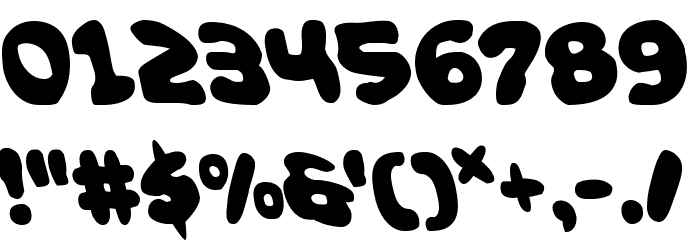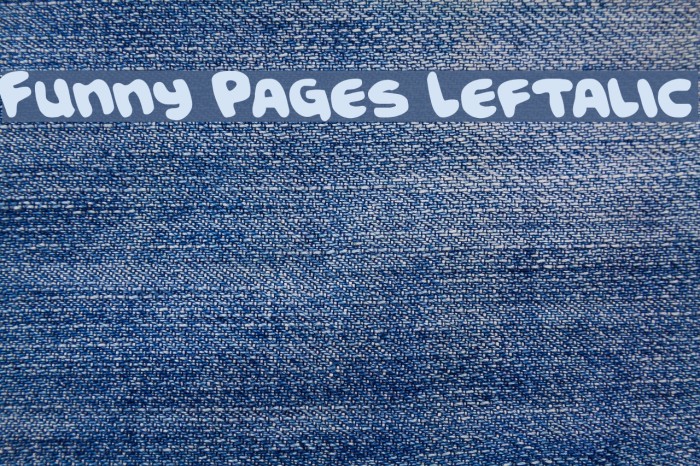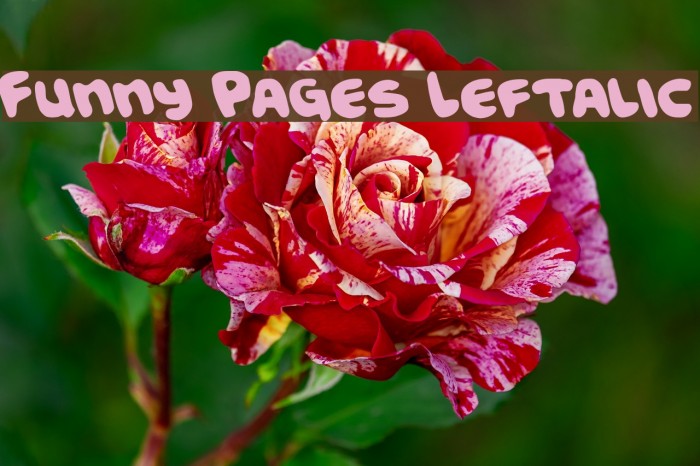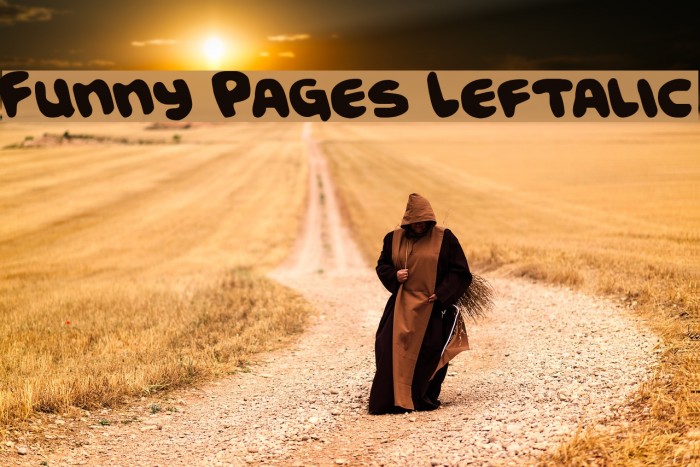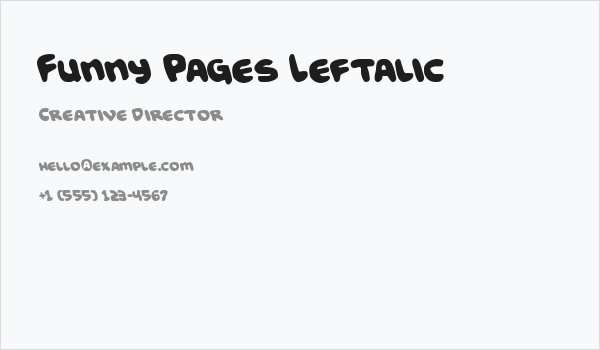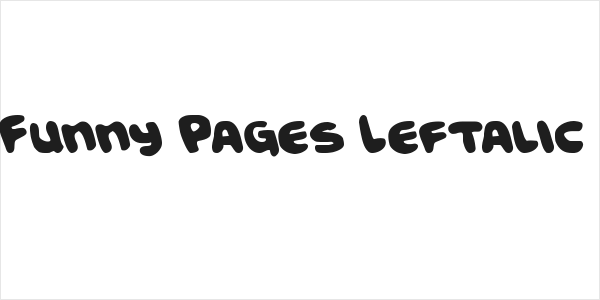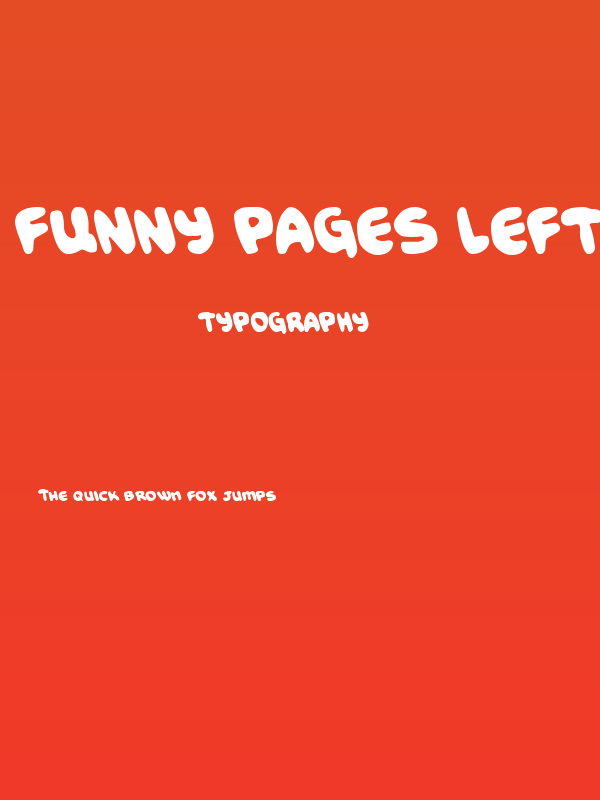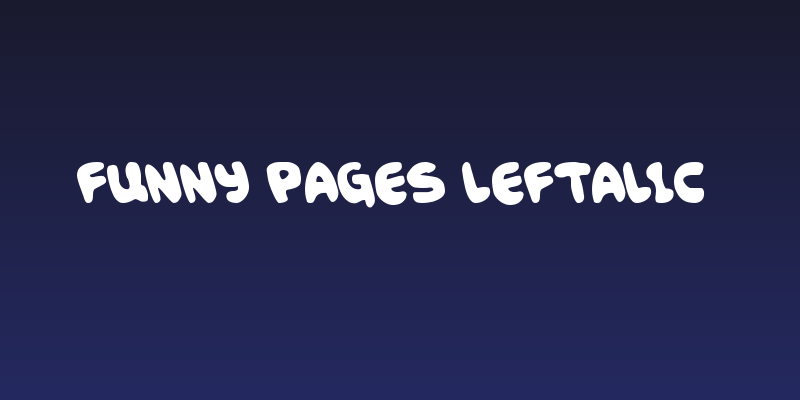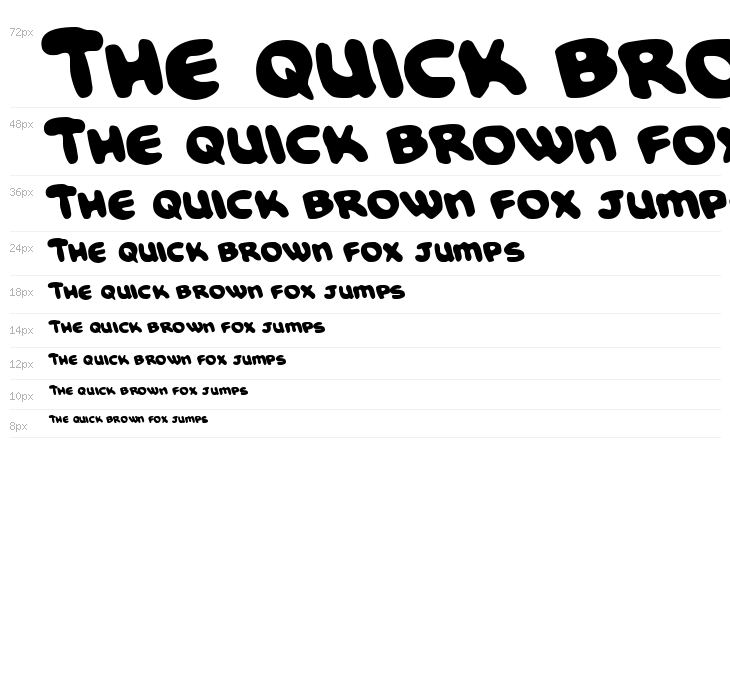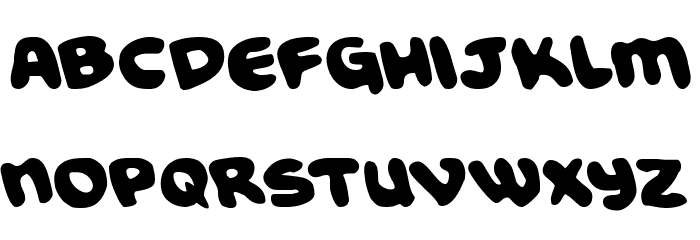
Funny Pages Leftalic Font
Funny Pages Leftalic Description
This playful and bold font features a whimsical, cartoon-like style with rounded, bubbly characters. The letters have a consistent thickness, giving them a uniform appearance, while the slightly slanted orientation adds a dynamic and fun touch. The font's overall design is reminiscent of comic book lettering, making it ideal for projects that require a lighthearted and informal tone. Its boldness ensures high readability, even at smaller sizes, while the unique character shapes add personality and charm.
| Overall Style | Playful, Cartoonish |
| Proposed Projects | Ideal for comic books, children's books, playful branding, and posters. |